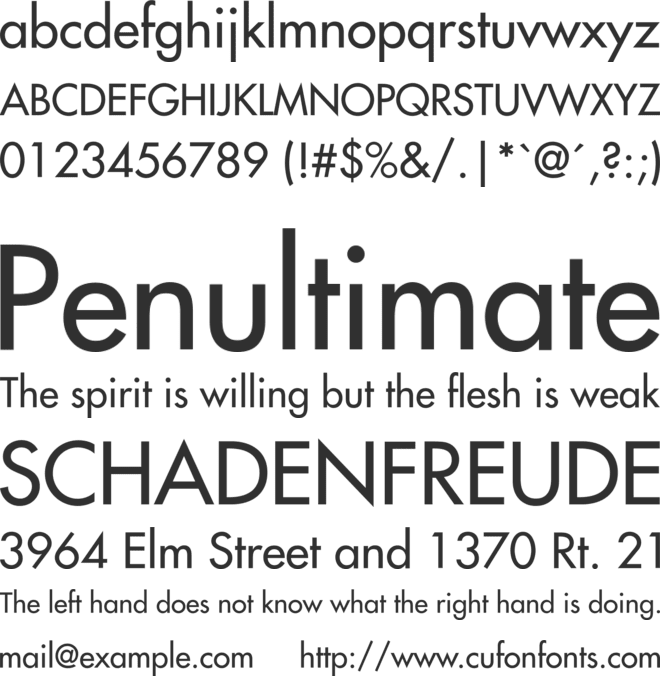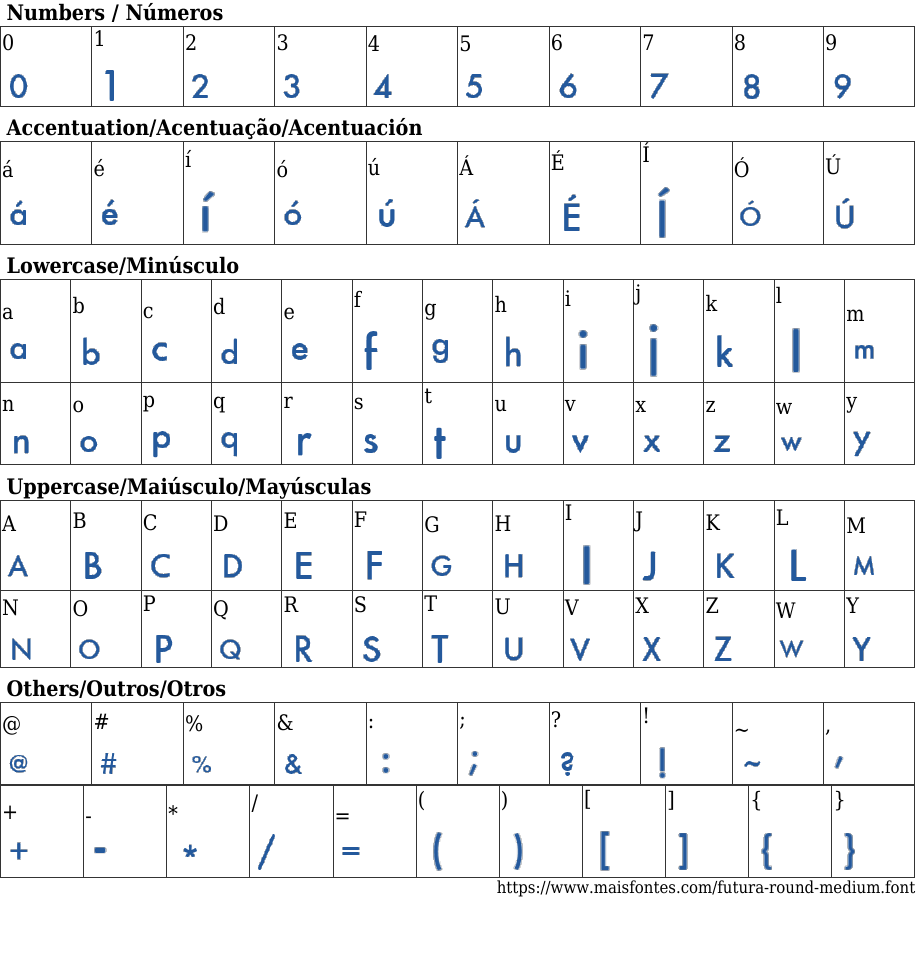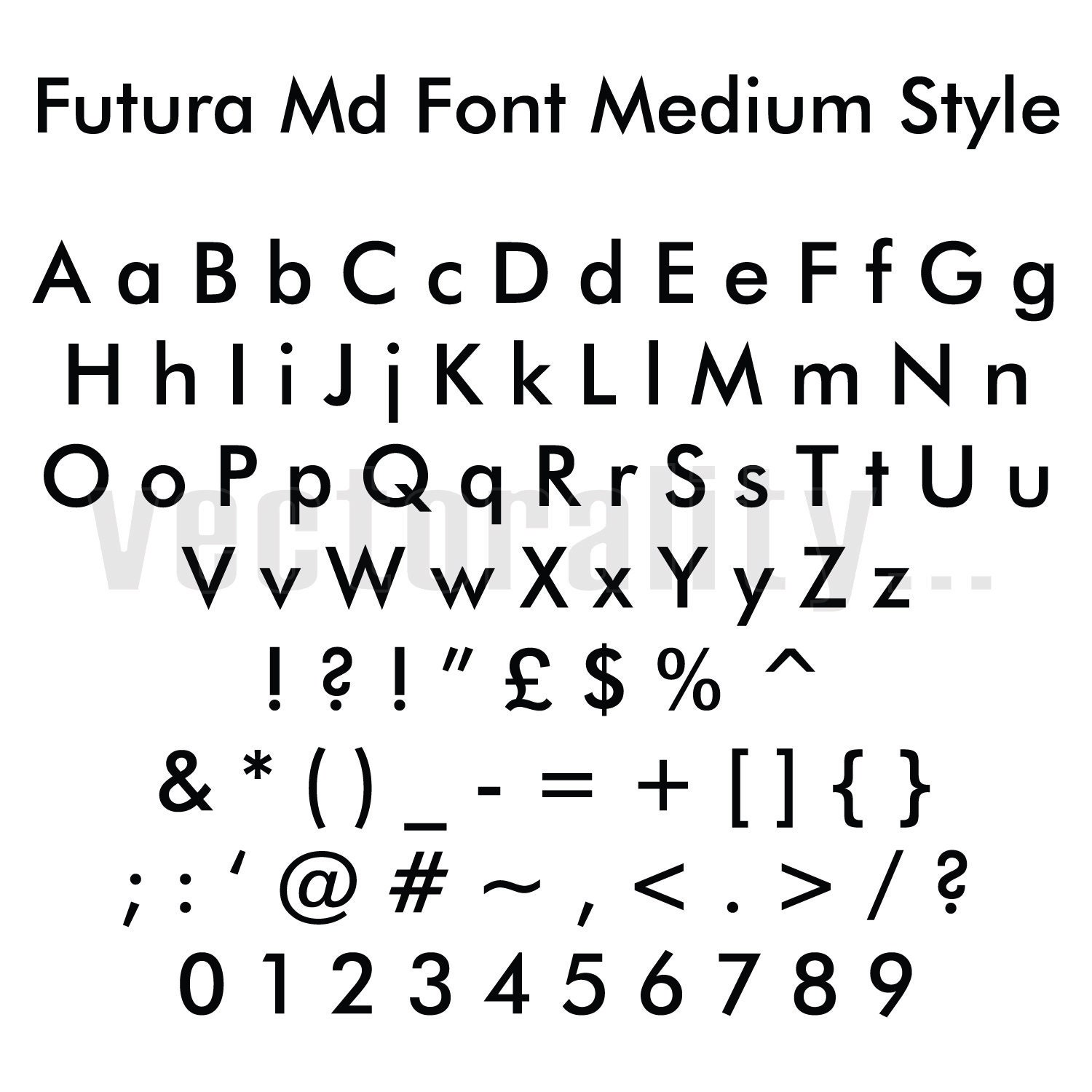
Futura Font Medium
Futura Font Medium - Design amazing projects with futura pt medium typeface, learn about the full character set of futura pt medium, try online font to see letters,. This font features a clean, geometric. Download futura medium bt font. Explore futura pt designed by isabella chaeva, paul renner, vladimir andrich, vladimir yefimov at adobe fonts. A sans serif typeface with 14.
Design amazing projects with futura pt medium typeface, learn about the full character set of futura pt medium, try online font to see letters,. This font features a clean, geometric. Download futura medium bt font. A sans serif typeface with 14. Explore futura pt designed by isabella chaeva, paul renner, vladimir andrich, vladimir yefimov at adobe fonts.
Explore futura pt designed by isabella chaeva, paul renner, vladimir andrich, vladimir yefimov at adobe fonts. Design amazing projects with futura pt medium typeface, learn about the full character set of futura pt medium, try online font to see letters,. Download futura medium bt font. This font features a clean, geometric. A sans serif typeface with 14.